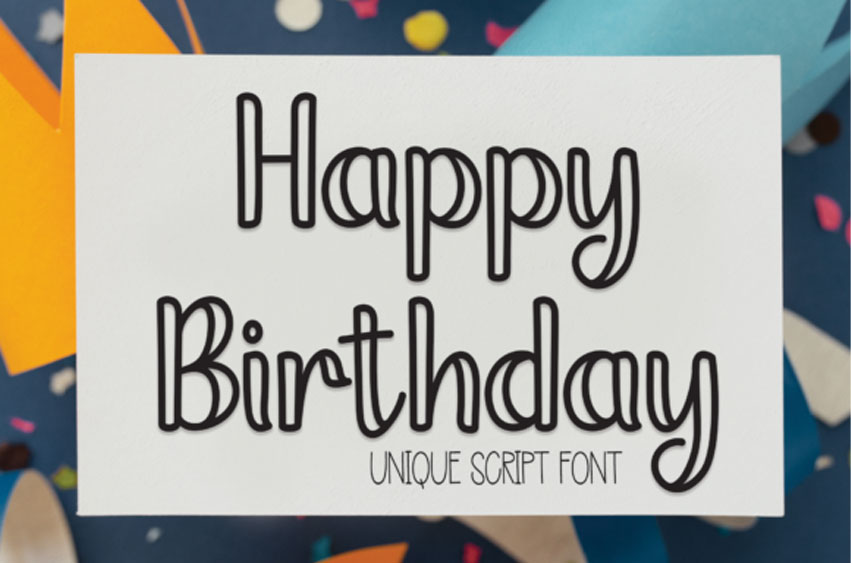
Happy Birthday Unique Font
Happy Birthday Unique Font is an elegant script font with a contemporary feel and perfect form.
Not too thin and not too thick, balanced and varied, this font is designed to enhance the beauty of your projects.